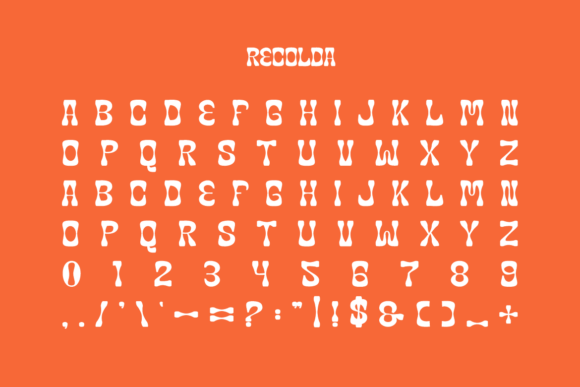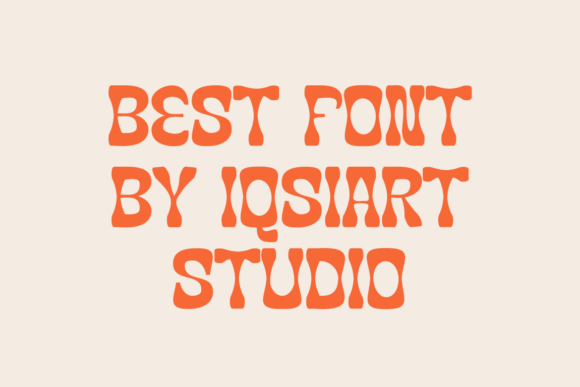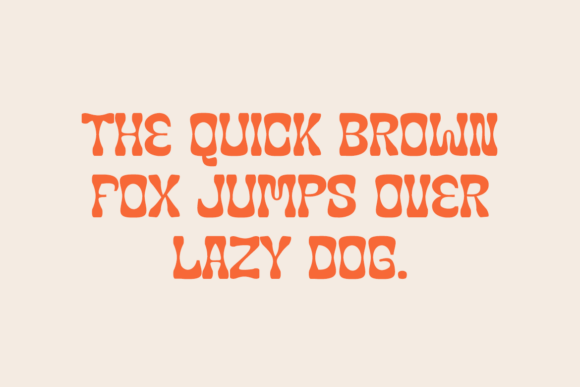
Recolda Font
Recolda is a quirky sans serif font, that features a very delicate and classy look. Not too thin and not too thick, balanced and varied, Recolda was designed to enhance the beauty of your projects.